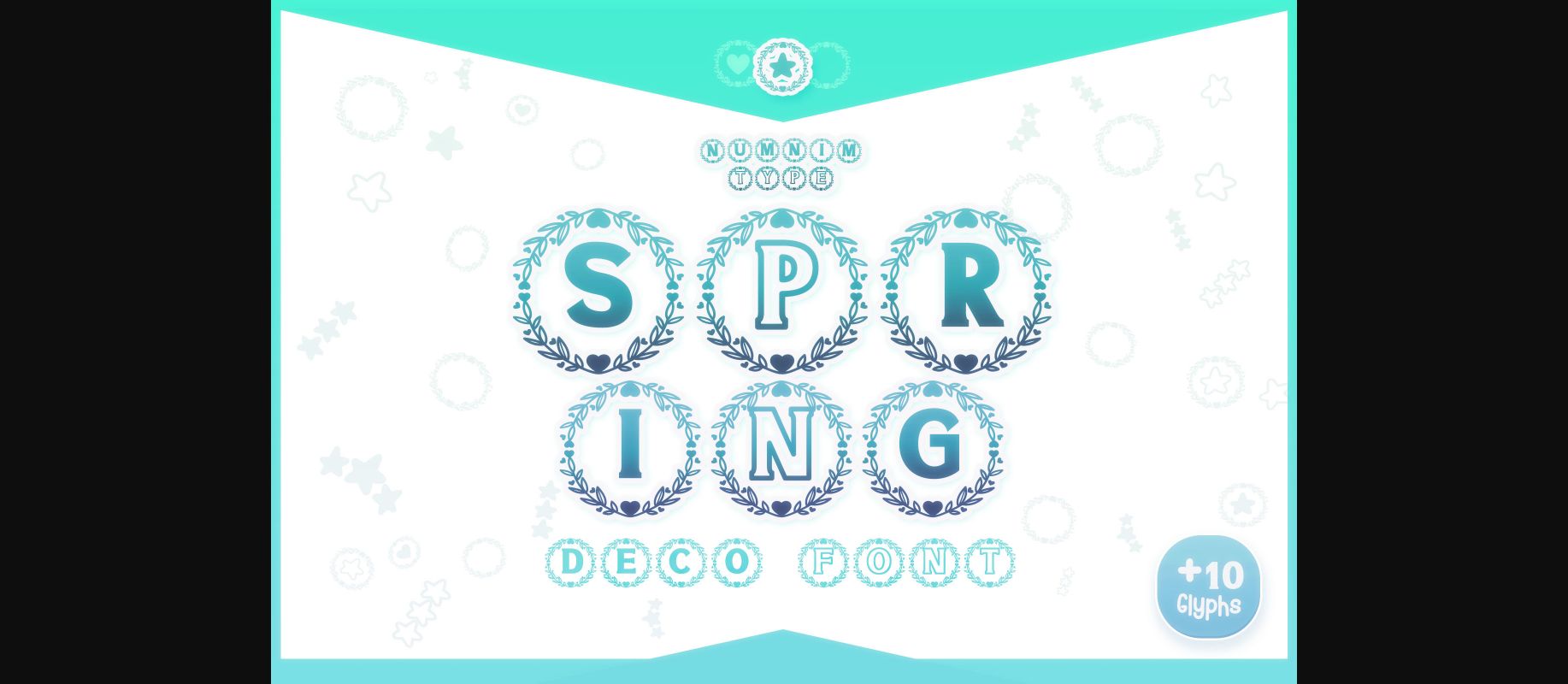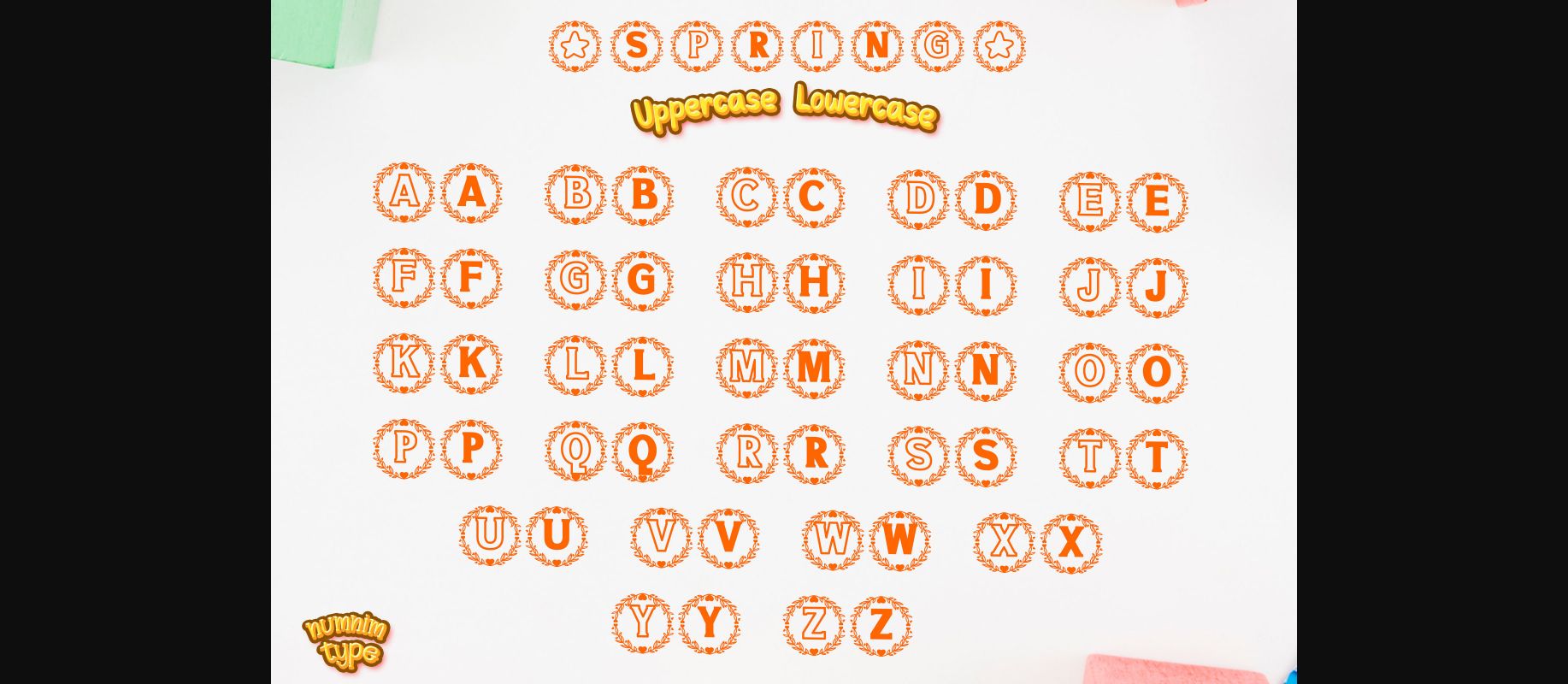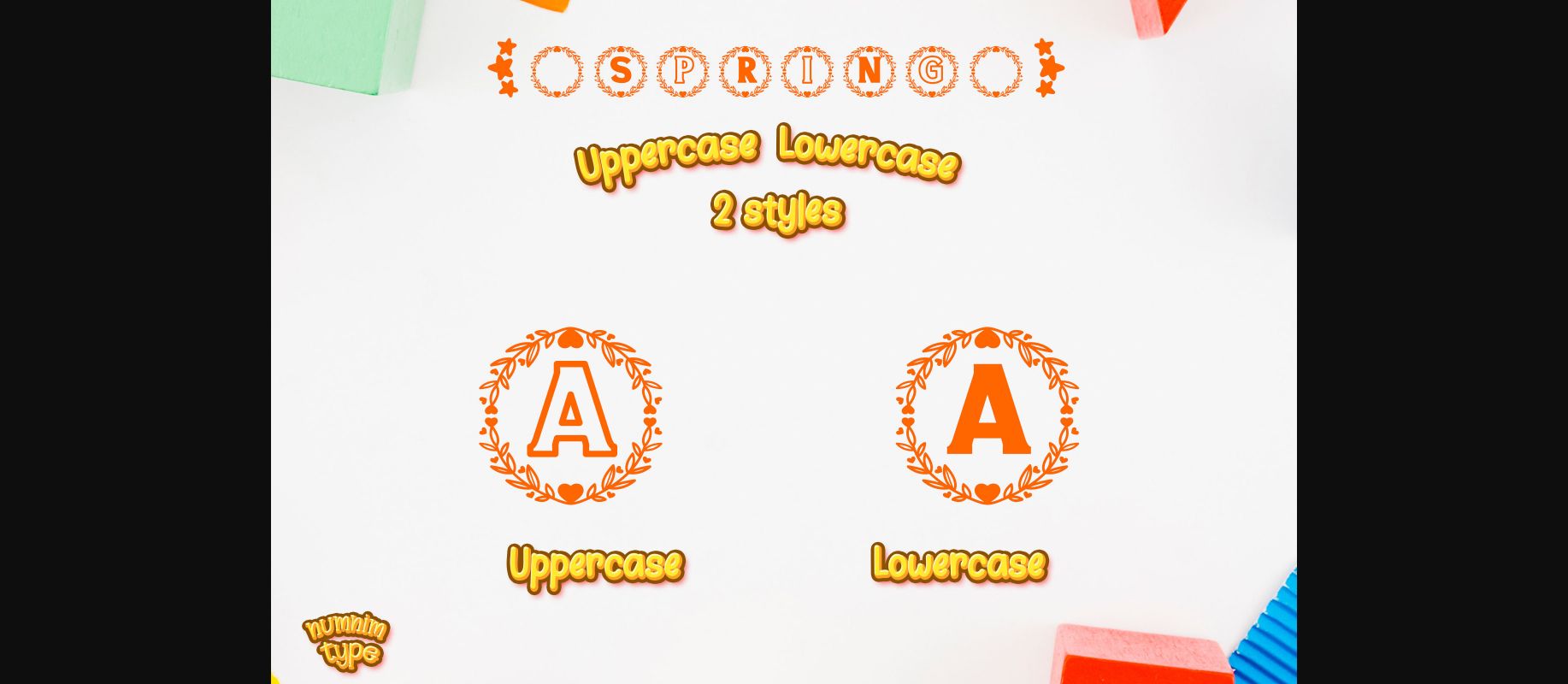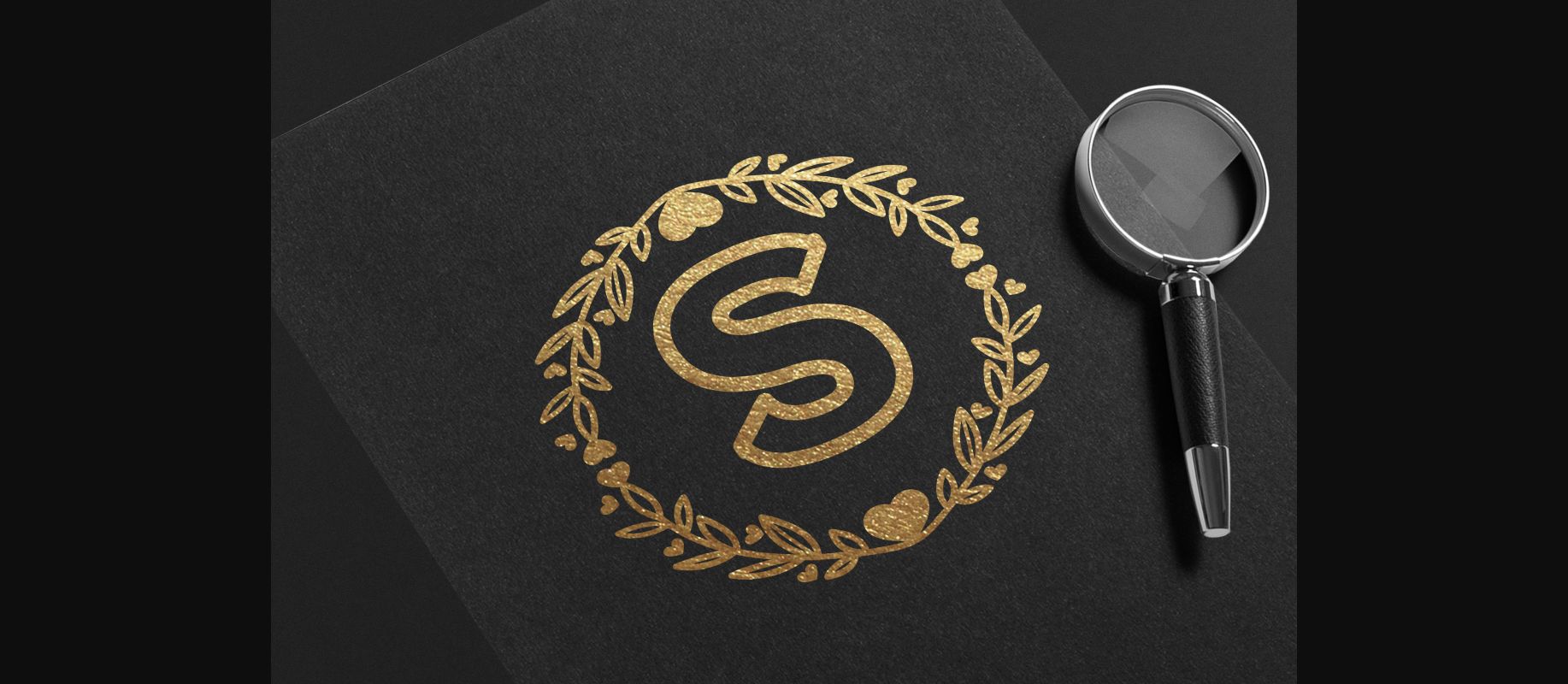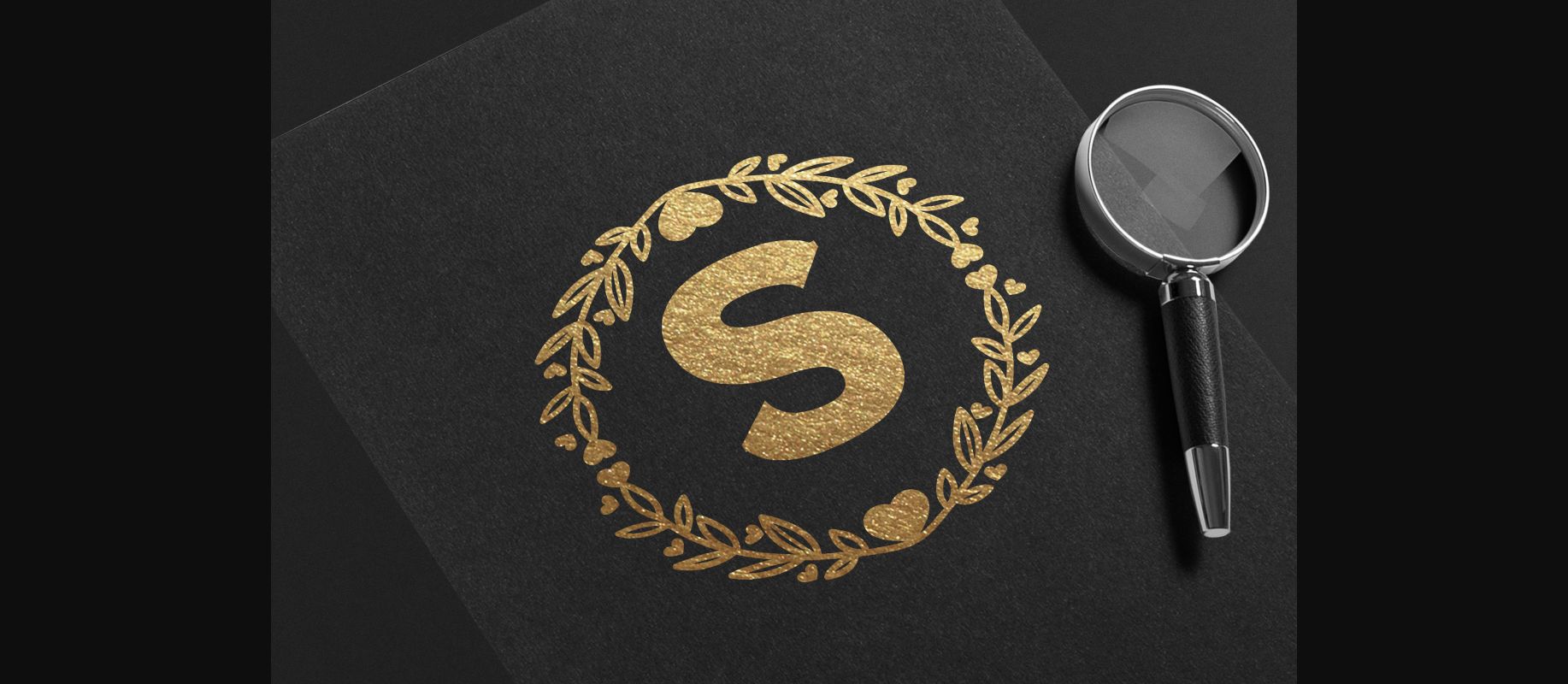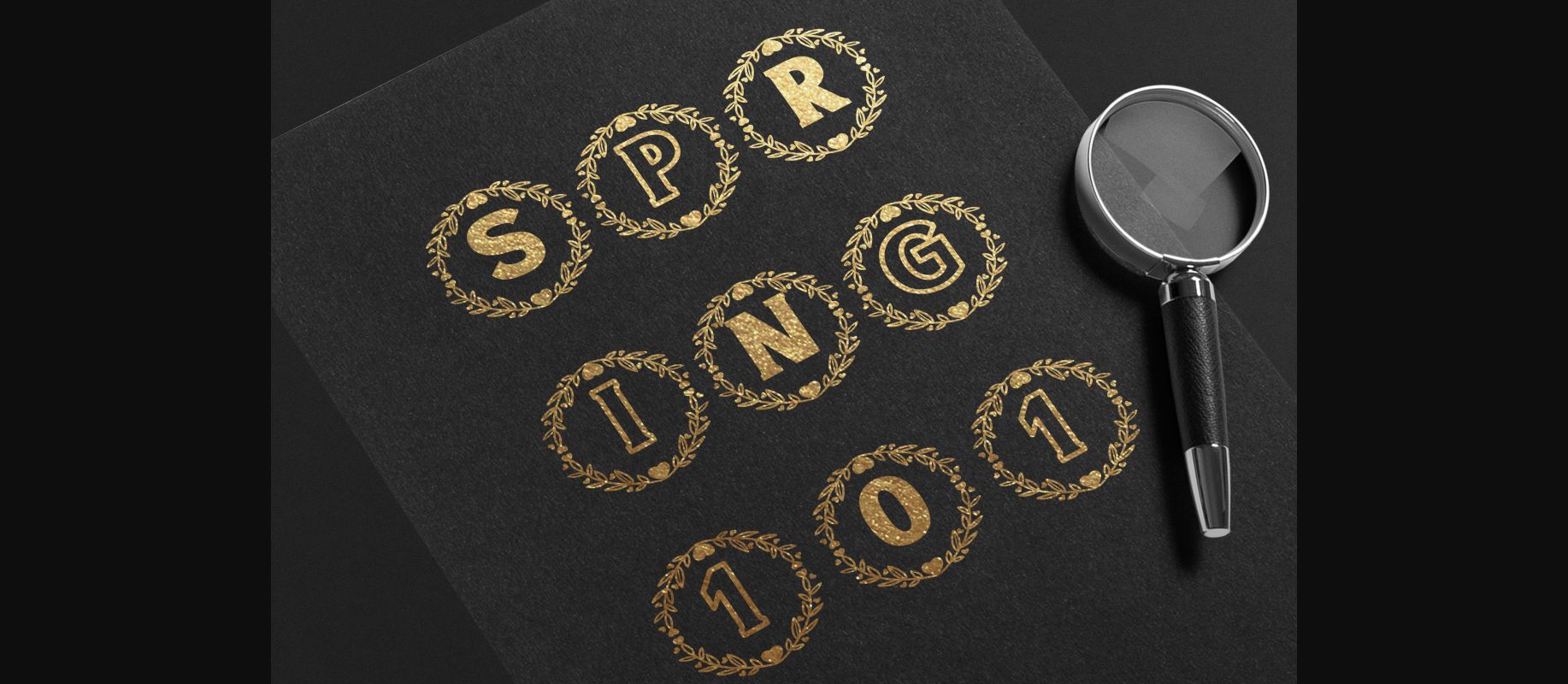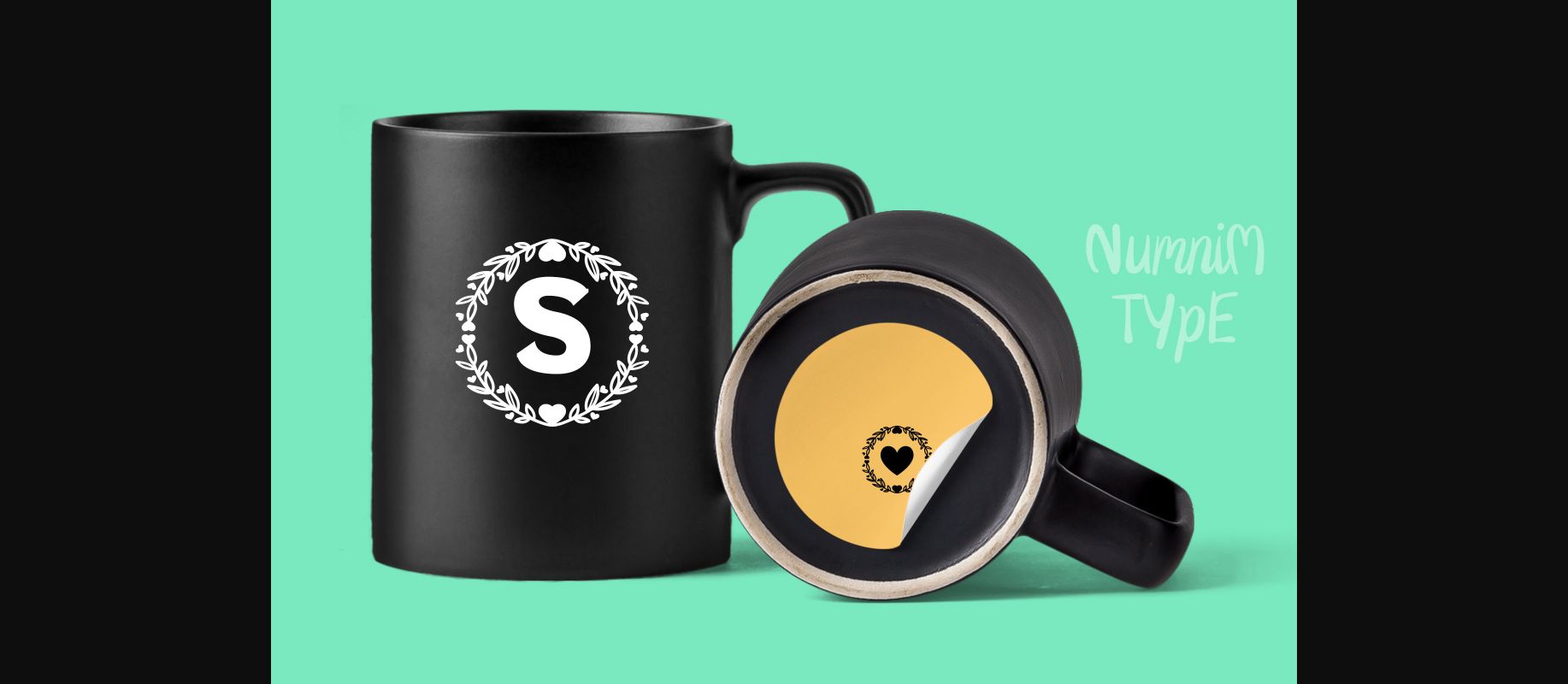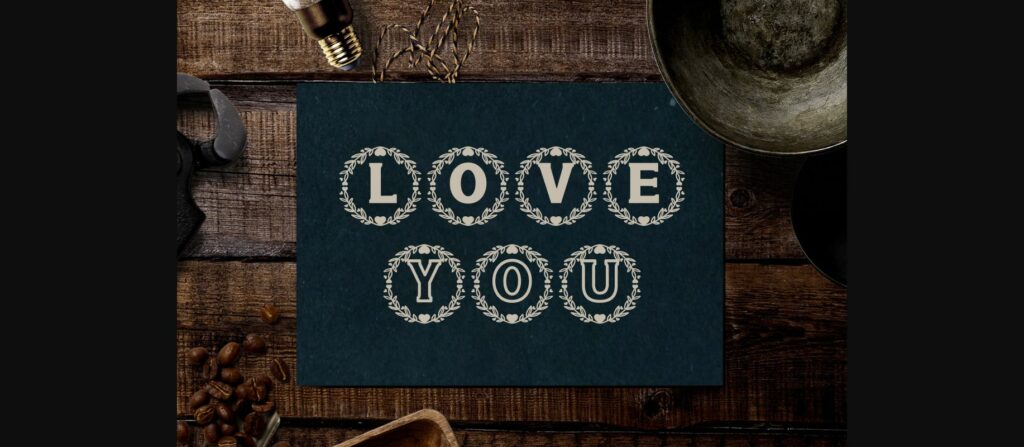
Spring is a delicate and uniquely designed decorative font. This font is suitable for floral decorations and love-related projects. It is also PUA encoded which means you can access all of the glyphs and swashes with ease!